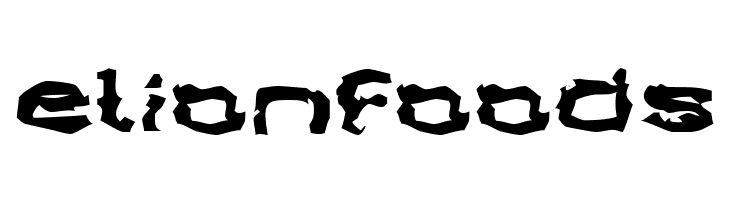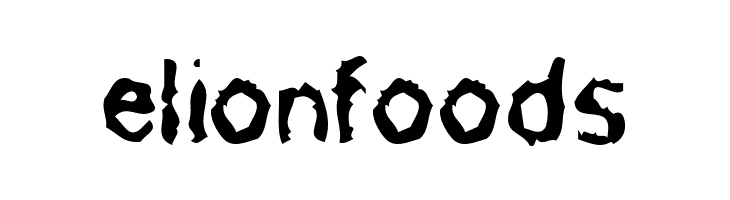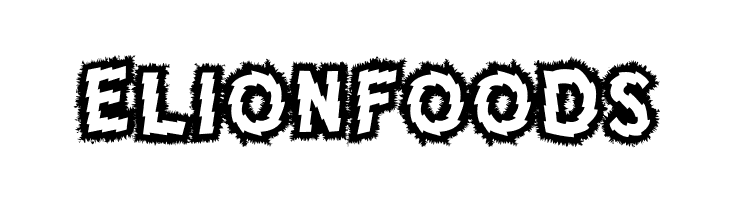
A bold, chaotic, and jagged font with a distressed, hand-drawn appearance.
A dramatic, edgy font with sharp, jagged edges and a dripping effect.
A bold, jagged font with sharp, thorny edges and a striking appearance.
A bold, distressed font with a rugged, aged appearance.
A bold, jagged, and aggressive font with a distressed, rebellious style.
A bold, jagged font with a futuristic, distressed style.
A bold, distressed font with jagged edges and a dynamic, shattered effect.
A graffiti-inspired font with bold, jagged strokes and an urban, edgy style.
A bold, rugged font with a distressed, shredded appearance.
A bold, distressed font with jagged edges and dynamic style.
A rugged, distressed font with a bold and dynamic style.
A bold, jagged font with a classic horror theme and hand-drawn appearance.
A rugged, distressed font with a bold, grunge-inspired aesthetic.
A quirky, hand-drawn font with jagged edges and a playful style.
A bold, jagged font with an electrifying outline, perfect for dynamic and playful designs.
A raw, edgy, hand-drawn style with jagged, uneven strokes.
A bold, distressed font with a rugged, weathered appearance.